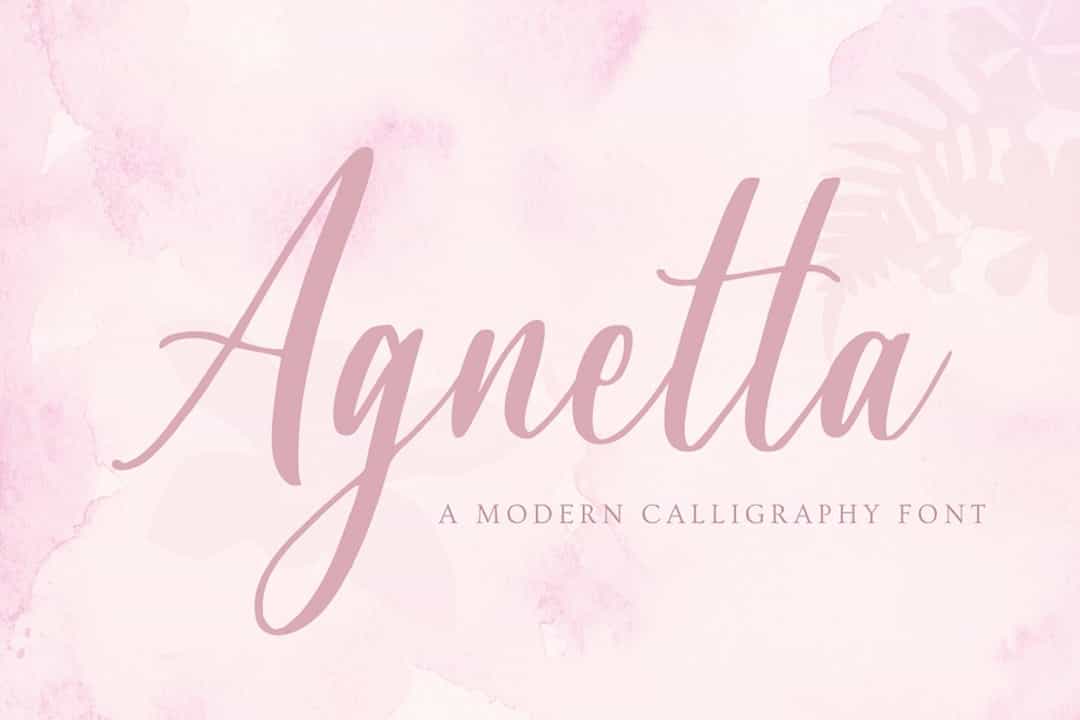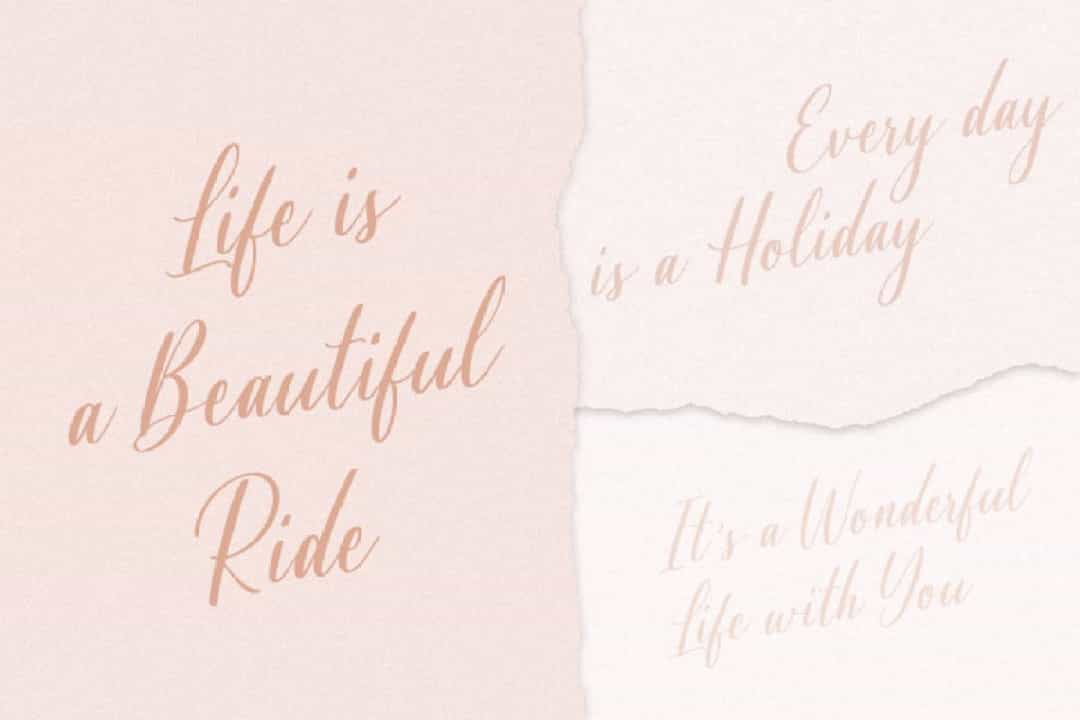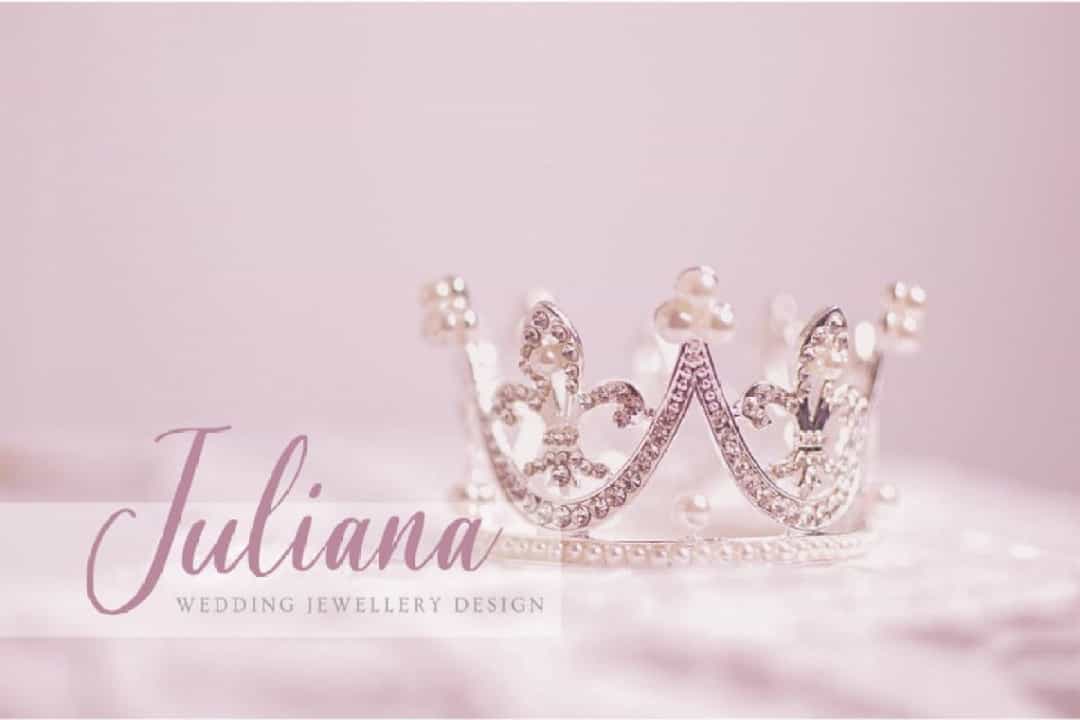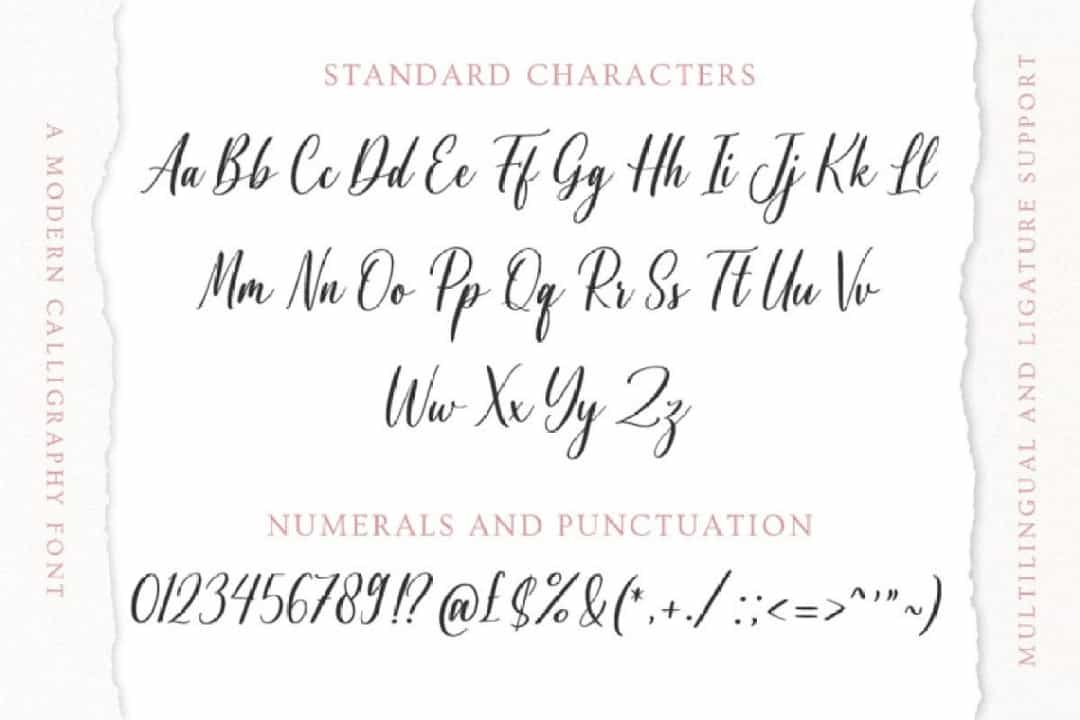
This is a beautiful Modern Calligraphy Font named Agnetta that will take you to the modern world, elegance, and fashion. Think of ladies taking tea in a garden in the summer or high tea parties with women dressed in pastels and sipping on numerous cups of tea made from the finest tea leaves.